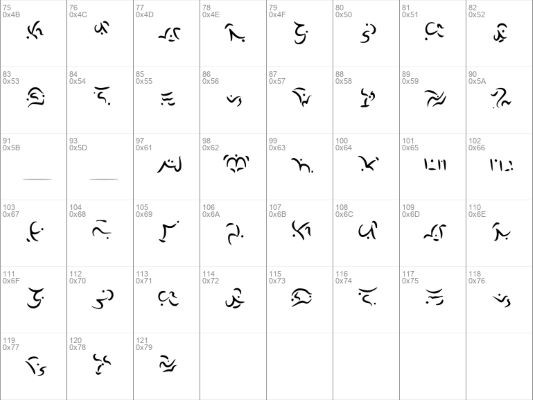
Elvish Medium Font
The Elvish Medium Font is considered one of the most stylish fonts of all time, comparable to a mystical font. It enhances your writing abilities and makes them more attractive.
It’s a warmness, hard, multifaceted font device that contains signerica font, slab, script, homemade and extras.